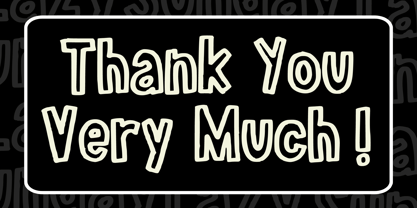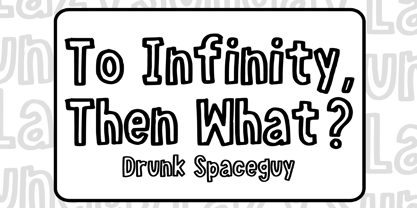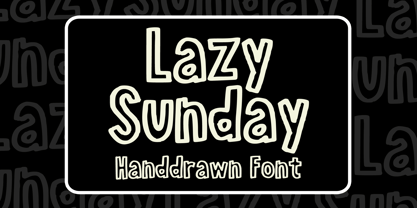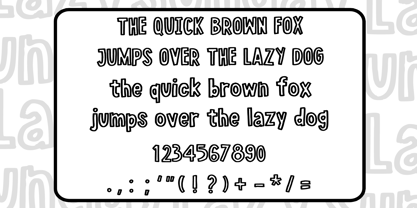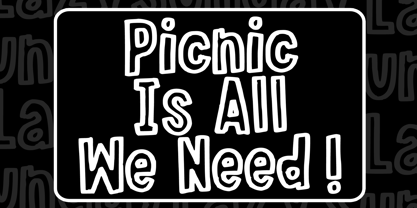
Lazy Sunday
by Mvmet
The Lazy Sunday Font Family was designed by Gabriel Valentinus and published by Mvmet. Lazy Sunday contains 1 styles. More about this family
Chalk 3D is a fun and cool sketchy handdrawn outline font inspired by natural marker writing and drawing, suitable for your school projects and more. It works great for creating cool designs that scream for attention. You can use this font for many design ideas such as stickers, t-shirt designs, amazing logo designs, magazine or book covers, comics, cartoon drawings, and many more. This font will add a super cool touch to your designs!
Designers: Gabriel Valentinus
Foundry: Mvmet